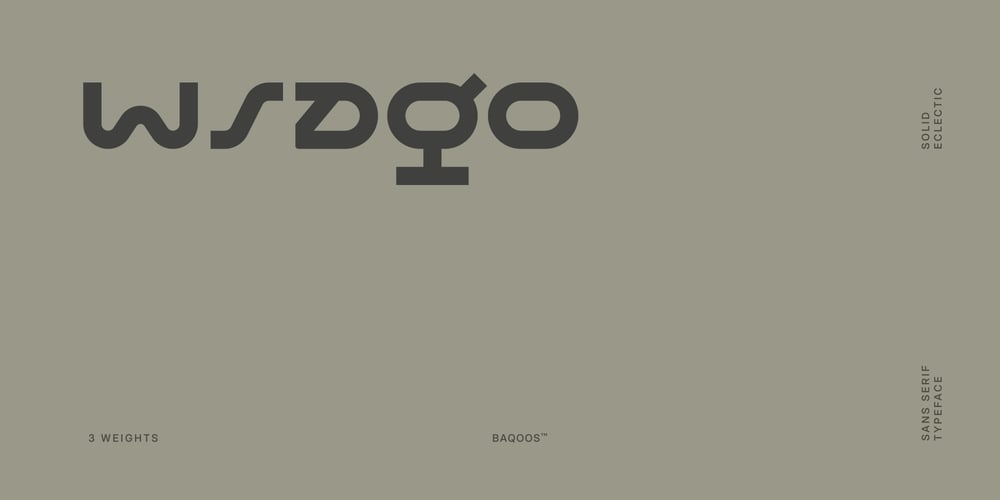
Wsago
Wsago font
Wsago Font Family was designed by Andrew Seah and published by Baqoos. Wsago contains 5 styles and family package options. Wsago is a solid eclectic linear sans apt for headline, editorial, branding, packaging, printed materials and typographic applications. 200+ glyphs with ligatures and fractions provided in opentype .otf and .woff format.